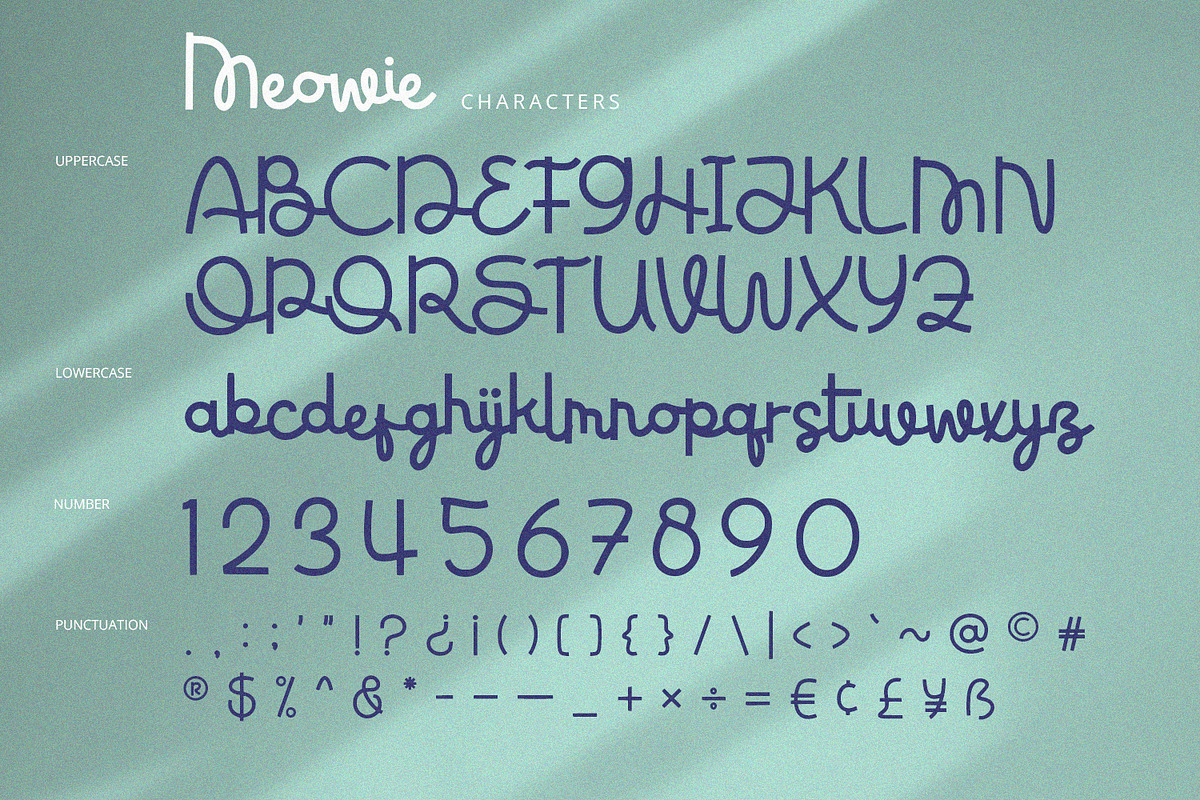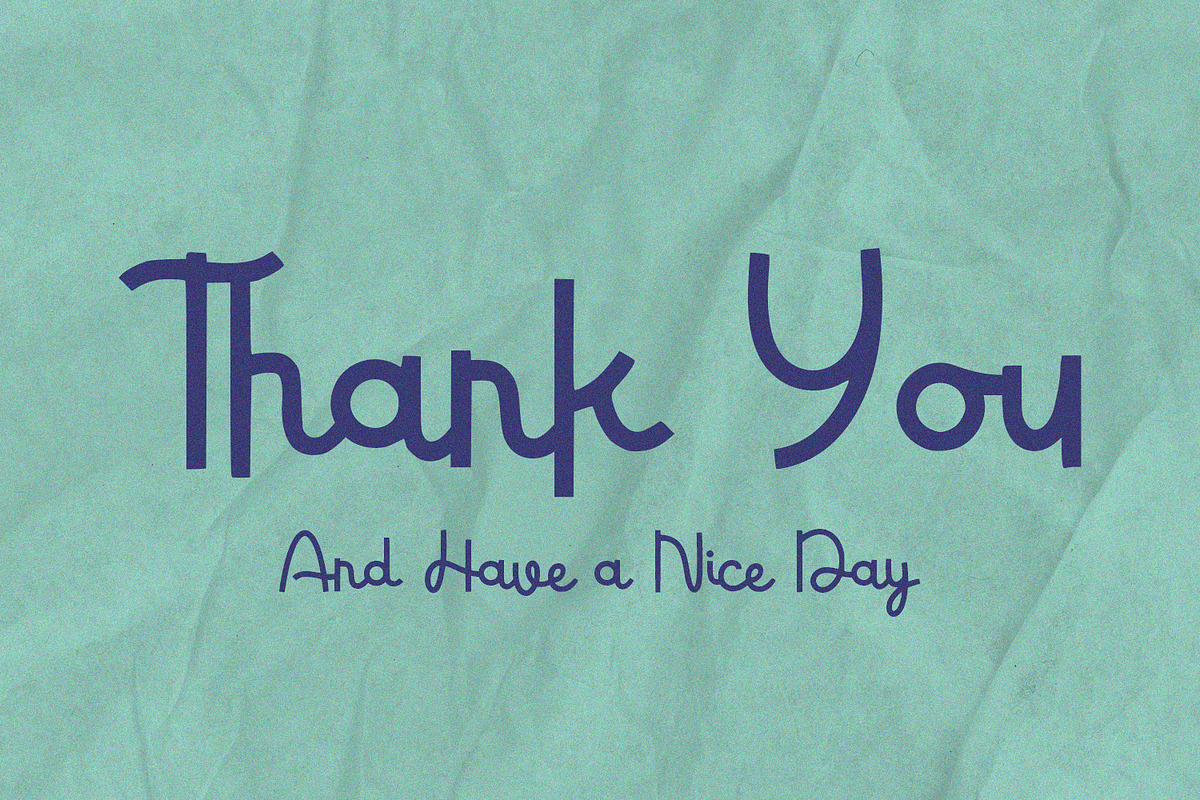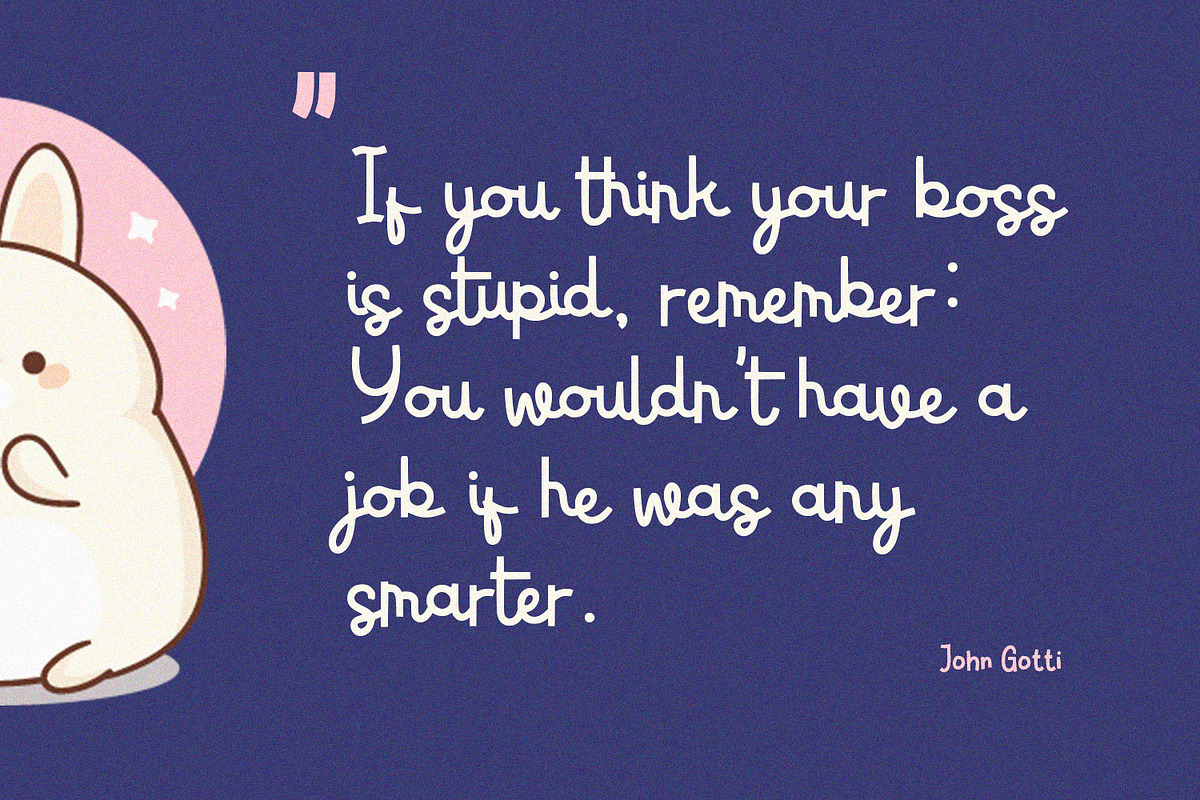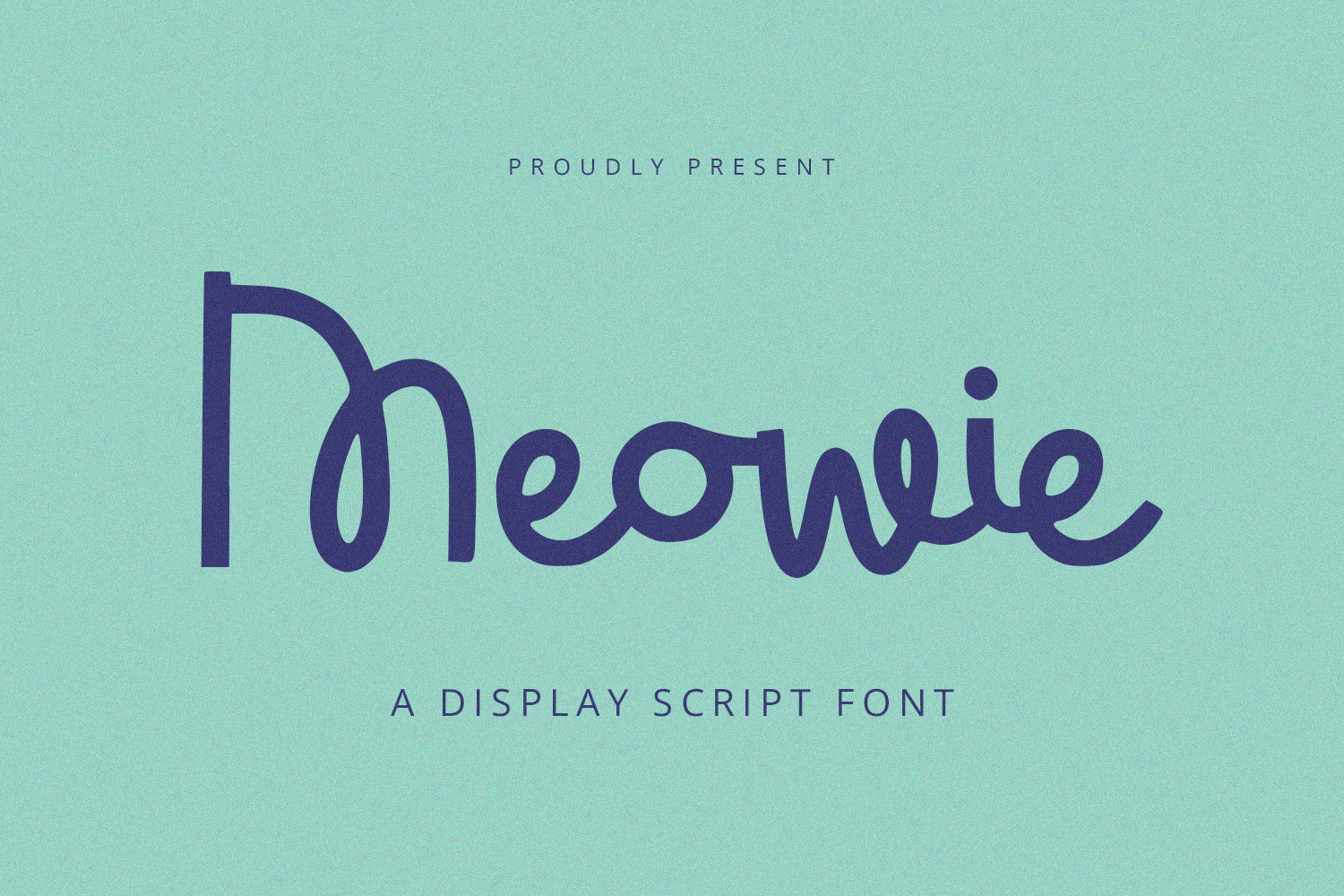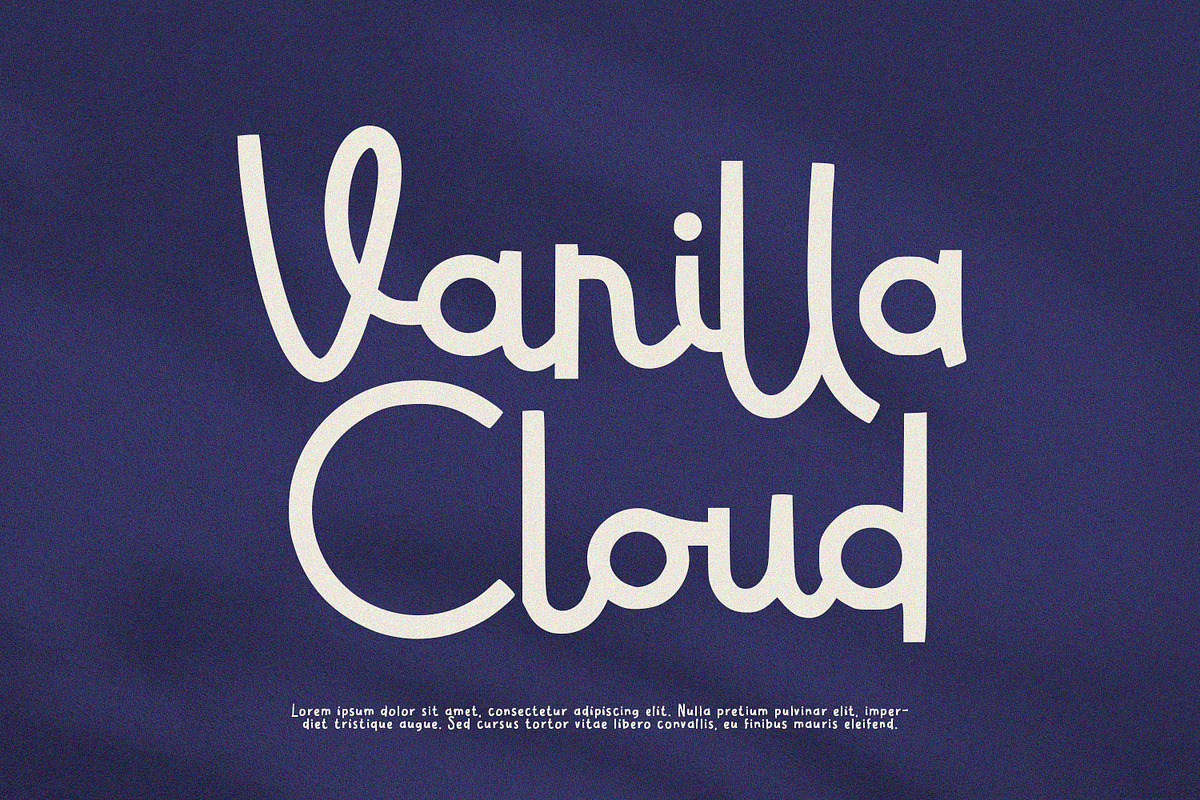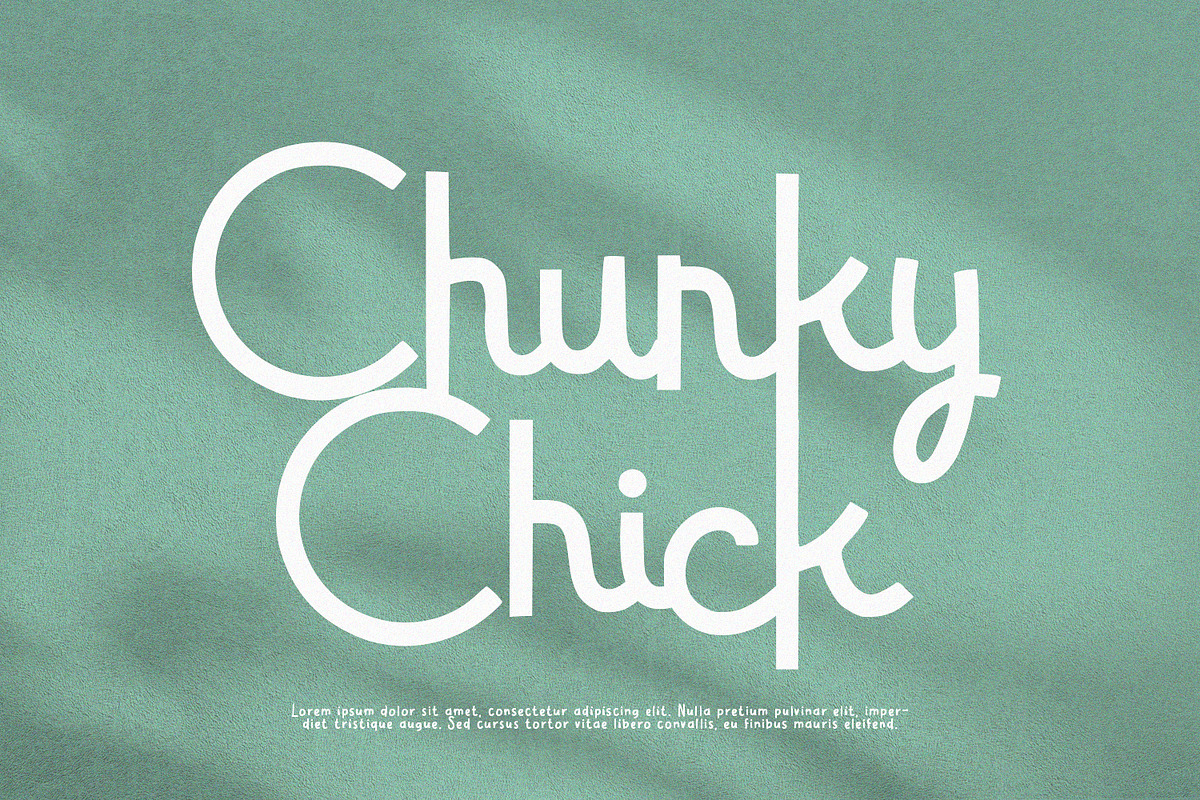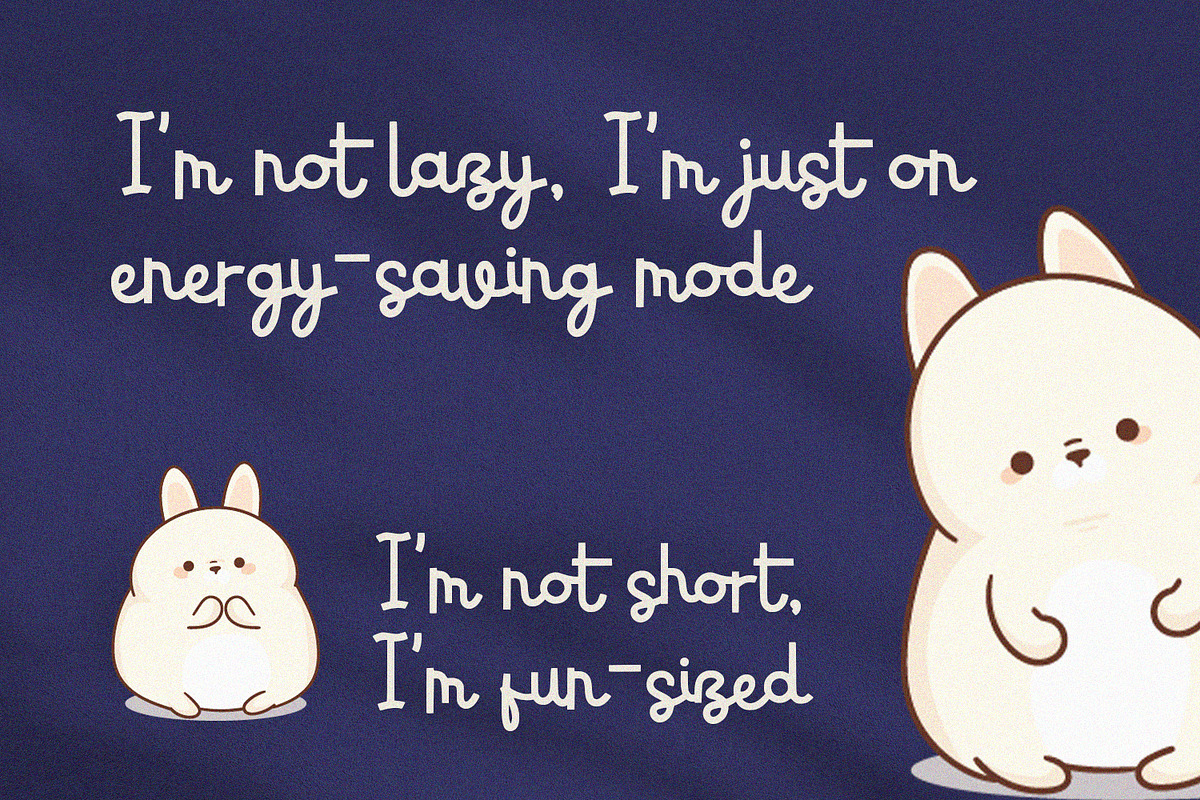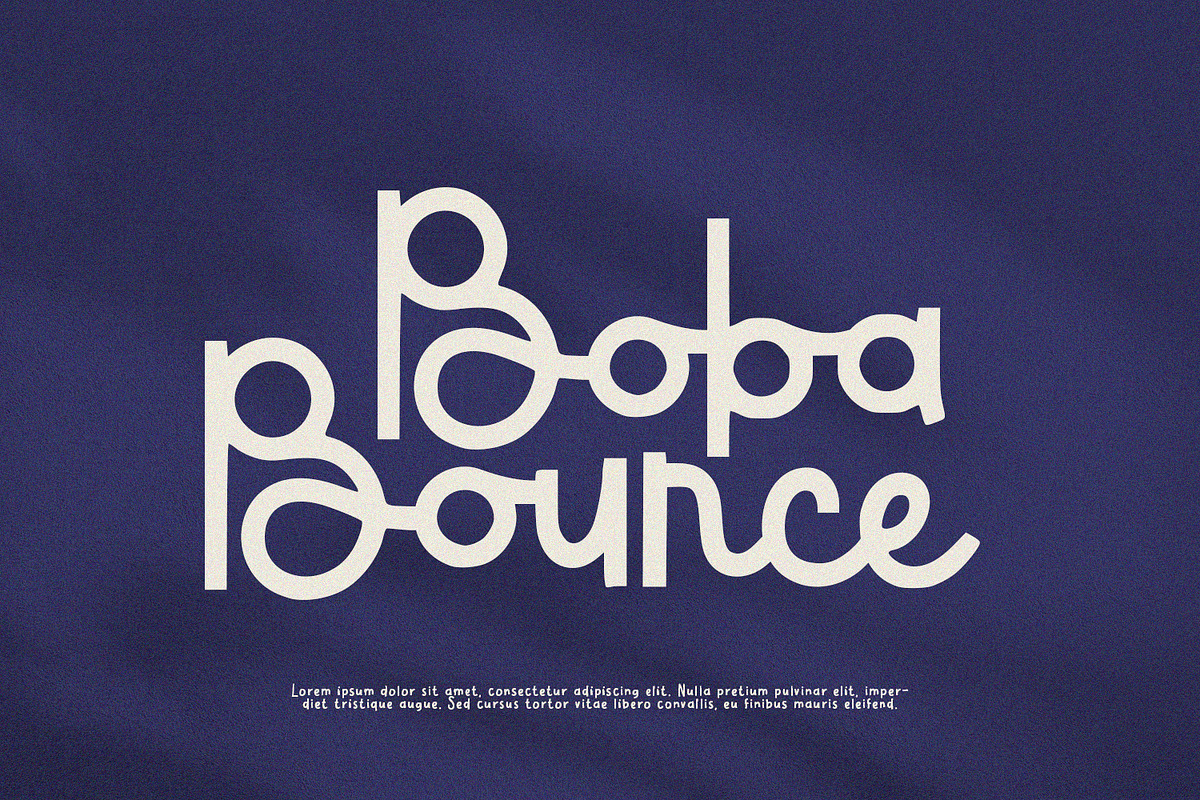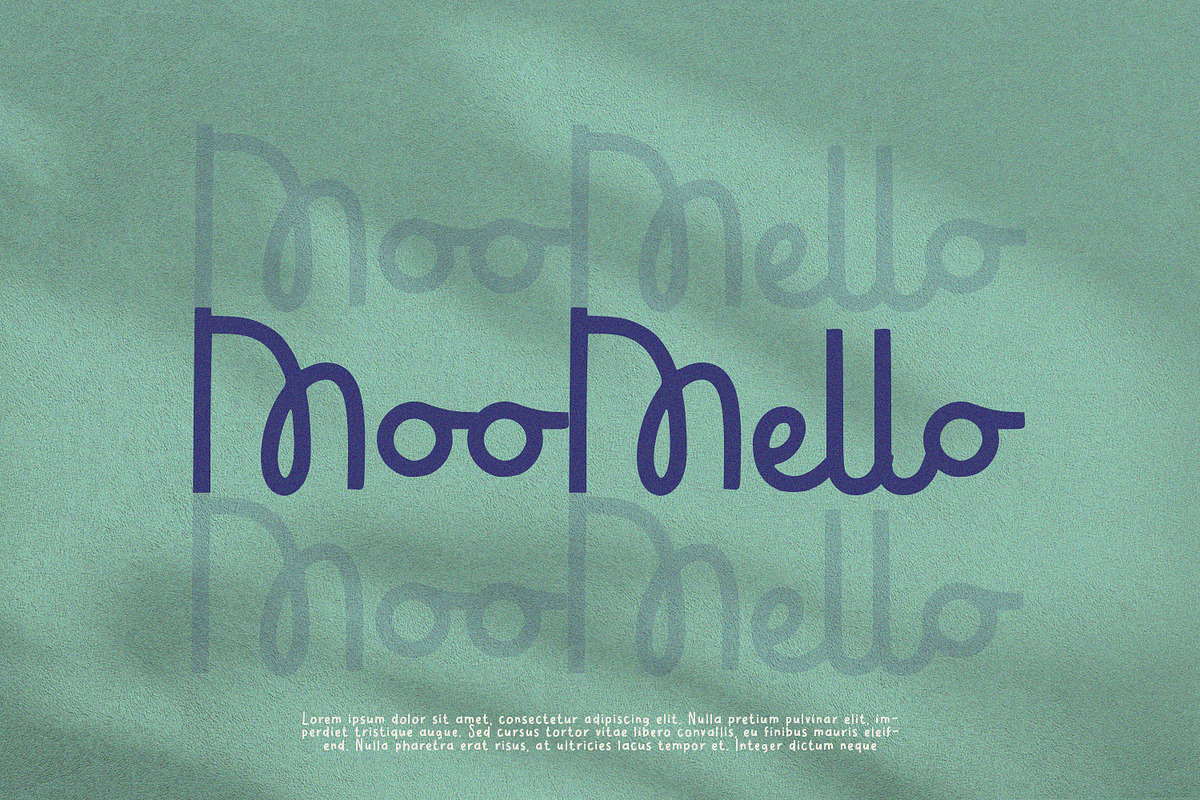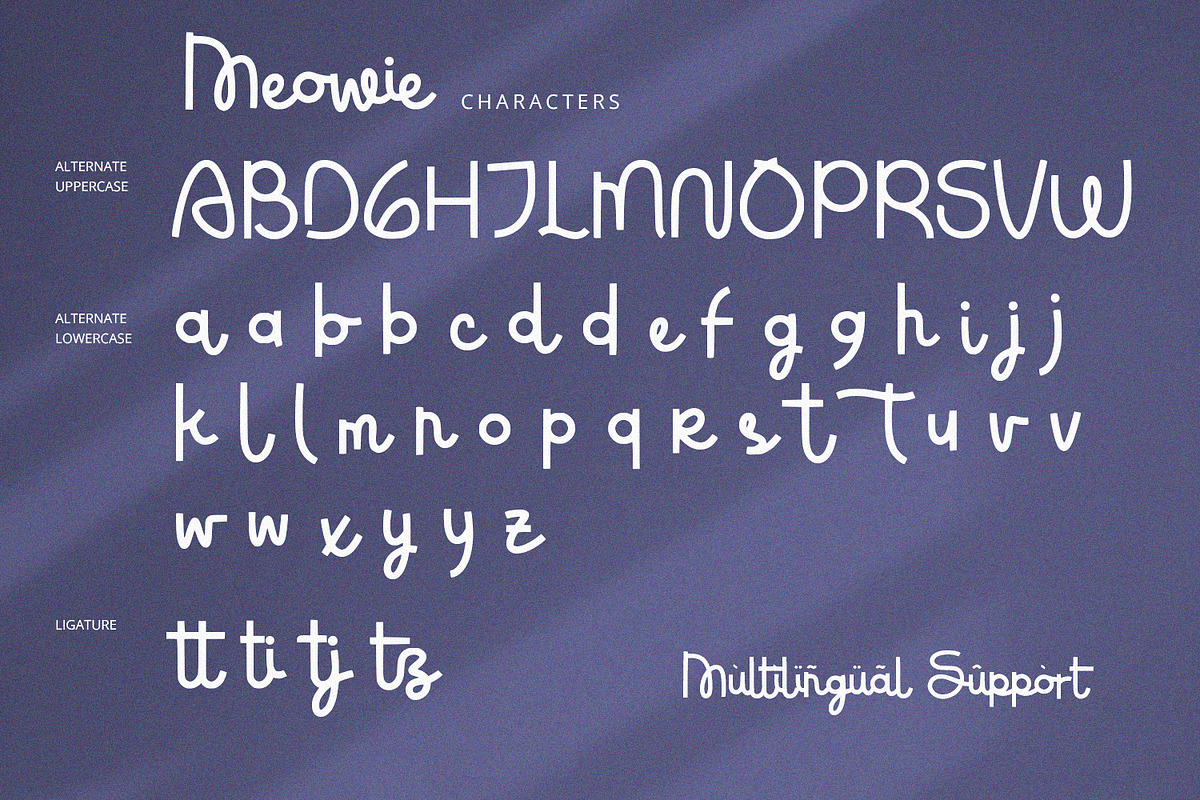
Meowie - Script Font
Meowie is a display script font with modern and playful feels. It will be perfectly used for Branding, Logo Design, Lettering, Logotype, Clothing, Poster, magazine, packaging, posters, shopping bags, t-shirts, book covers, photography, special events and other design project.